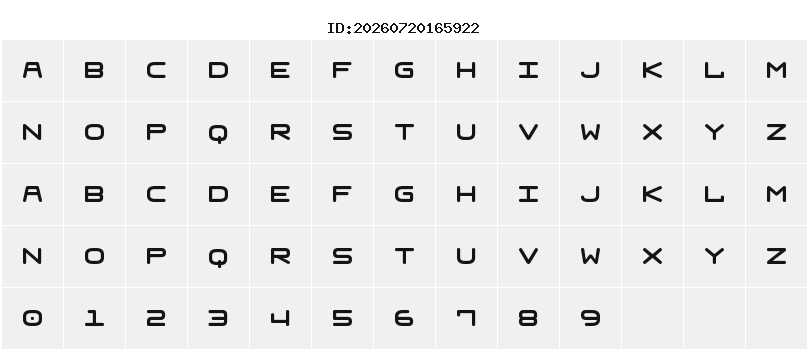
• Font Name: Fraulein II
• Full Font Name: Fraulein II
About Fraulein II.ttf
Fraulein II.ttf is a modern, elegant sans-serif font designed for ultimate readability and visual harmony. Perfect for branding, headlines, web design, and print materials.